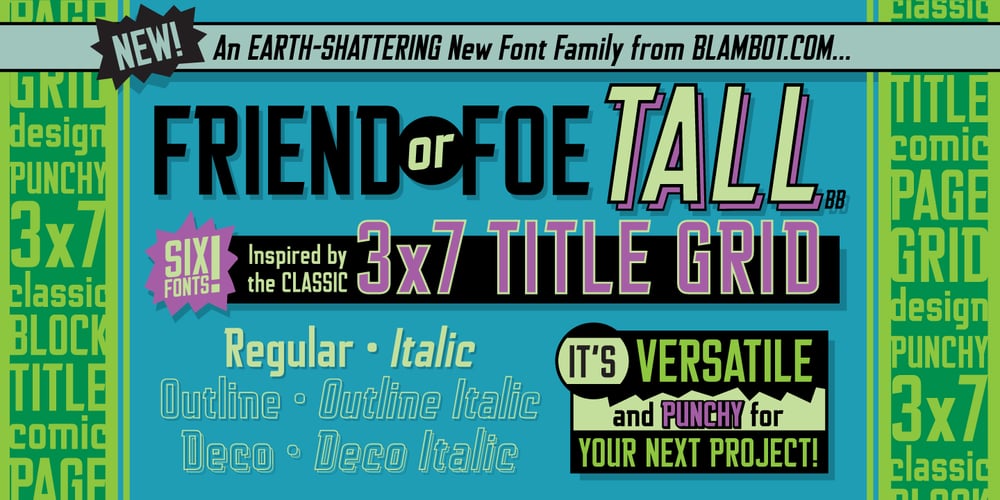
Friend Or Foe Tall BB Font Family was designed by Nate Piekos and published by Blambot. Friend Or Foe Tall BB contains 8 styles and family package options. Friend or Foe Tall BB is a family of 6 fonts inspired by the classic comic book title method of using a 3×7 grid to create each letter. It’s punchy and versatile and at the same time it fits in both modern and vintage design scenarios. Notes: A font family on MyFonts.com can contain an unlimited number of styles.